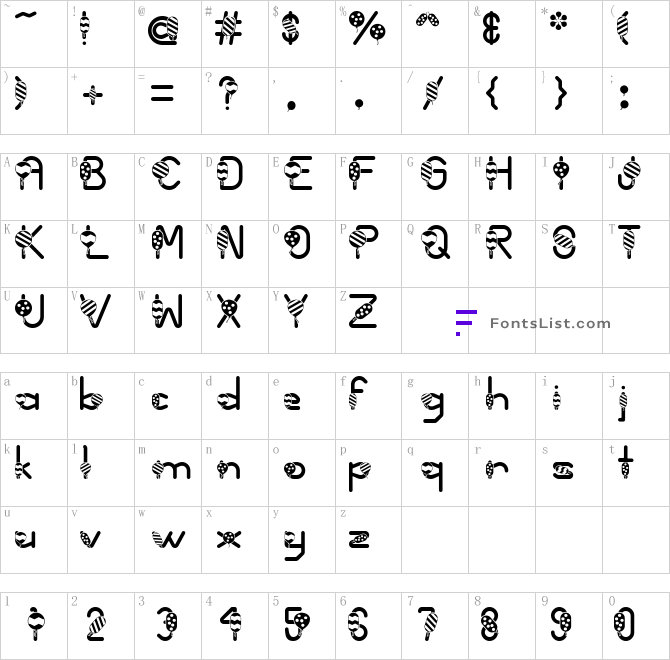
- Font Name:AC2-Balloons2
- Full Name:AC2 Balloons2
AC2-Balloons2.ttf is a very beautiful artistic font, AC2-Balloons2.ttf is widely used in the design and printing of various books and pictures,AC2-Balloons2.ttf has a strong visual impact,AC2-Balloons2.ttf is a commonly used font in newspapers, magazines and books, and is used in posters, e-commerce Poster design, store design, logo design, font design and other fields.AC2-Balloons2.